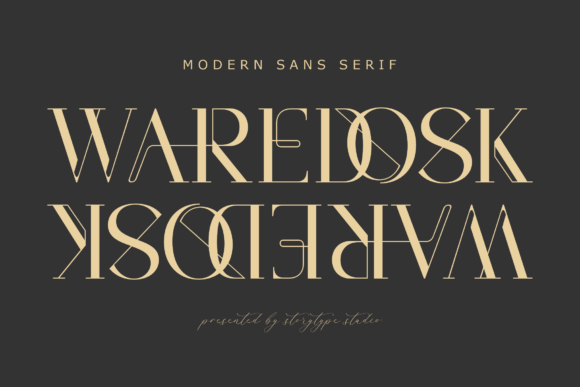
Waredosk, a stunning serif font family, is your gateway to crafting captivating web menus that exude elegance and sophistication. Each character, meticulously designed by Storytype Studio, embodies a symphony of curves and flourishes that dance across the screen.
Immerse yourself in the charm of Waredosk, a font that whispers luxury and femininity. Its graceful lines lend an air of refinement to any project, transforming your website into a visual masterpiece. Experience the allure of Waredosk and elevate your digital presence to new heights.
Whether you seek to create eye-catching logos, alluring social media graphics, or enchanting invitations, Waredosk empowers you to unleash your creativity. Its versatility knows no bounds, making it the perfect choice for a wide range of design endeavors.
Indulge in the beauty of Waredosk, a font that captivates the senses and ignites the imagination. Its timeless appeal will elevate your designs to extraordinary levels. Embrace the magic of Waredosk and embark on a journey of visual enchantment today.